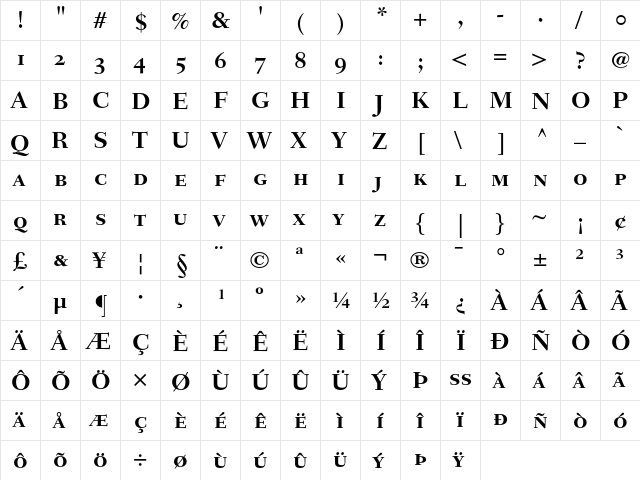
Fairfield LH 75 Bold Small Caps & Old Style Figures
Design Context for Fairfield LH Typeface
Fairfield LH is a composed and adaptable typeface that performs quietly and consistently across a wide range of design contexts. Its bold stroke weight gives it real presence on the page.